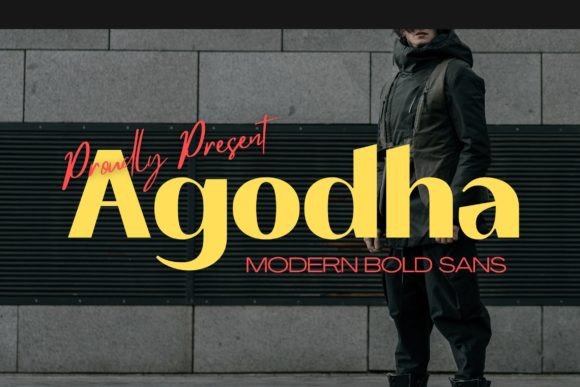
Introducing the Agodha Typeface: A Luxurious and Glamorous Display Font
Have you ever been working on a design project, and suddenly, you’re struck by a creative block? You’re not alone! I recall a recent experience where I was tasked with creating a logo for a high-end fashion brand. The client wanted something luxurious, modern, and nostalgic all at once. As I scrolled through my font library, I realized I needed something special – something that would make their brand stand out. That’s when I discovered the Agodha Typeface.
The Agodha Typeface: A Closer Look
The Agodha Typeface is a luxury and glamour display font that exudes sophistication and elegance. Its unique design makes it perfect for logos, letterheads, magazines, social media, and more. This font is both modern and nostalgic, making it versatile for various design projects.
What I Love About Agodha ✨
- ✅ Unique and elegant design
- ✅ Perfect for luxury brands and high-end designs
- ✅ Works great for logos, letterheads, and magazines
- ✅ Easy to read and understand
- ⚠️ Limited use for body text due to its display nature
- ⚠️ May require adjustments for certain design applications
- Experiment with OpenType features, such as ligatures and stylistic alternates, to enhance your design
The Backstory of Agodha
The Agodha Typeface was designed with the intention of creating a luxurious and glamorous font that would cater to the needs of high-end designers and brands. The designer aimed to craft a unique and elegant font that would add a touch of sophistication to any design project.
Q: What is the Agodha Typeface best used for?
A: The Agodha Typeface is best used for luxury brands, high-end designs, logos, letterheads, magazines, and social media.
Q: Can I use Agodha for body text?
A: While Agodha is a beautiful font, it’s primarily designed for display purposes. It may not be the best choice for body text due to its elegant and refined nature.
Q: Is Agodha a script font?
A: No, Agodha is not a script font. It’s a luxurious and glamorous display font with a unique and elegant design.